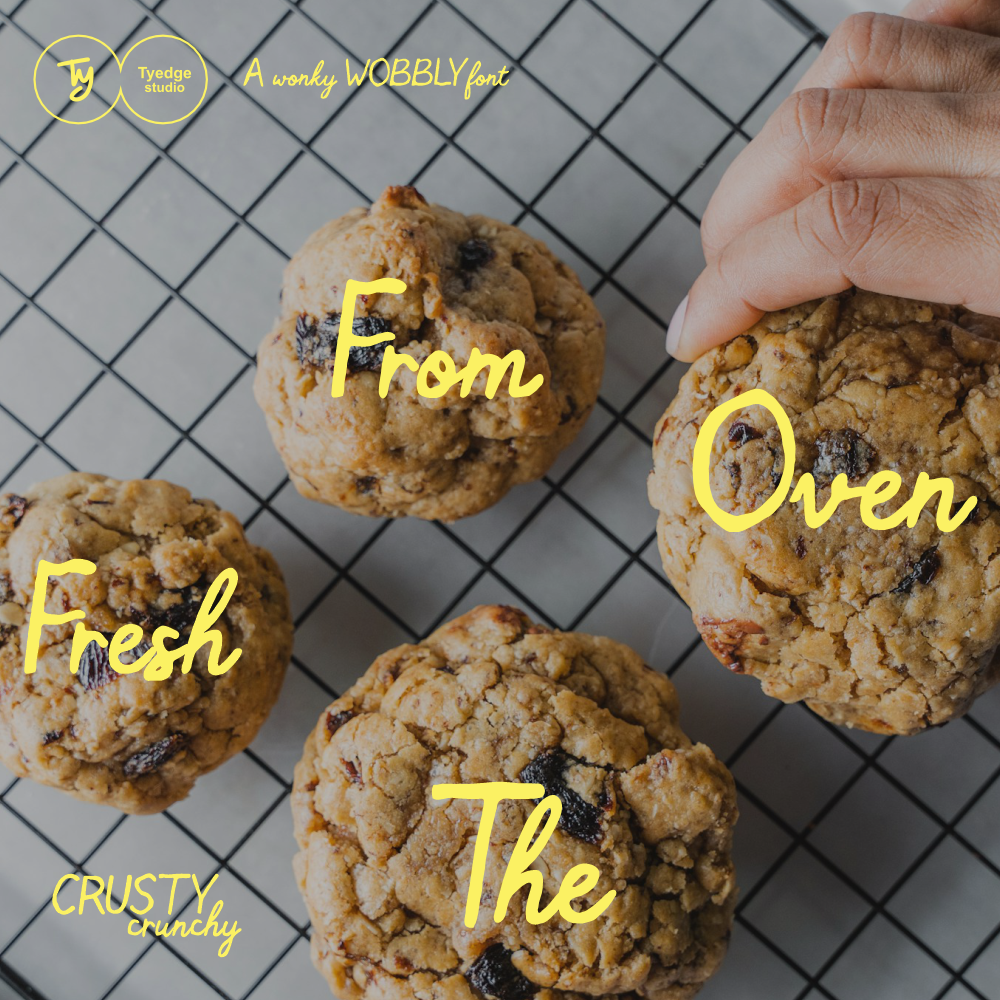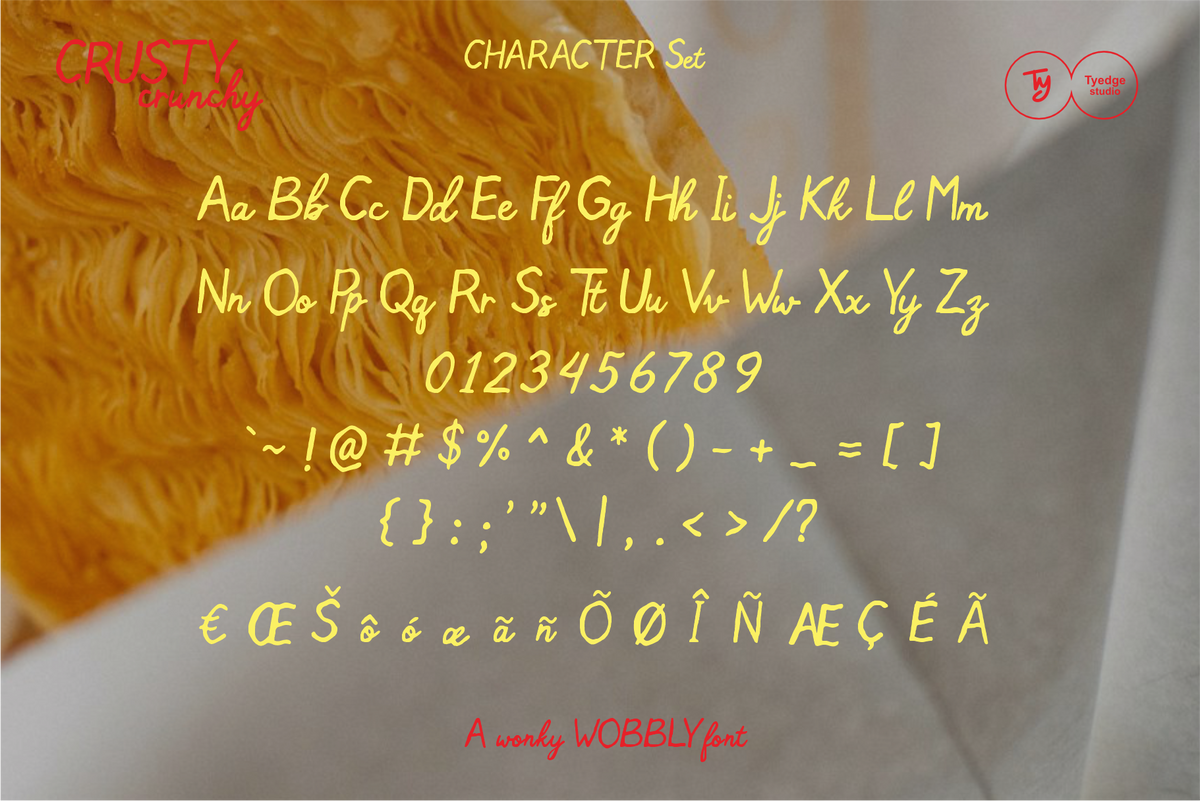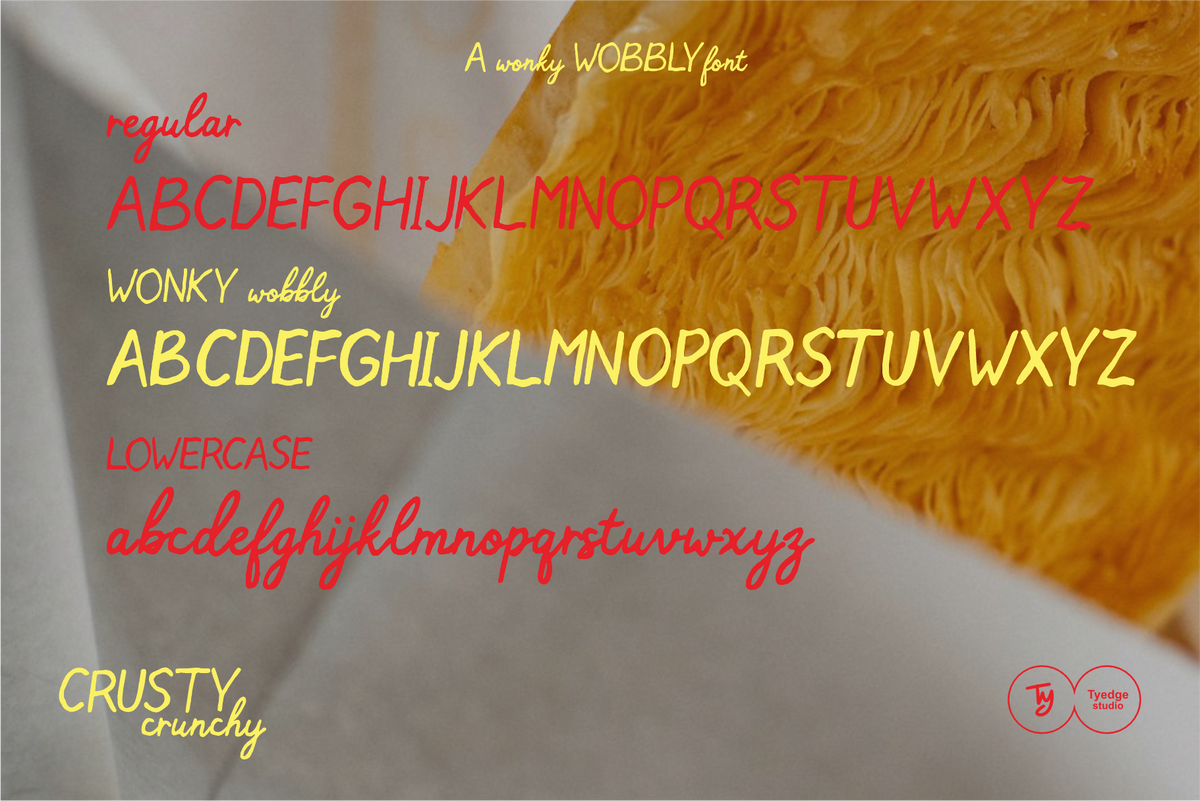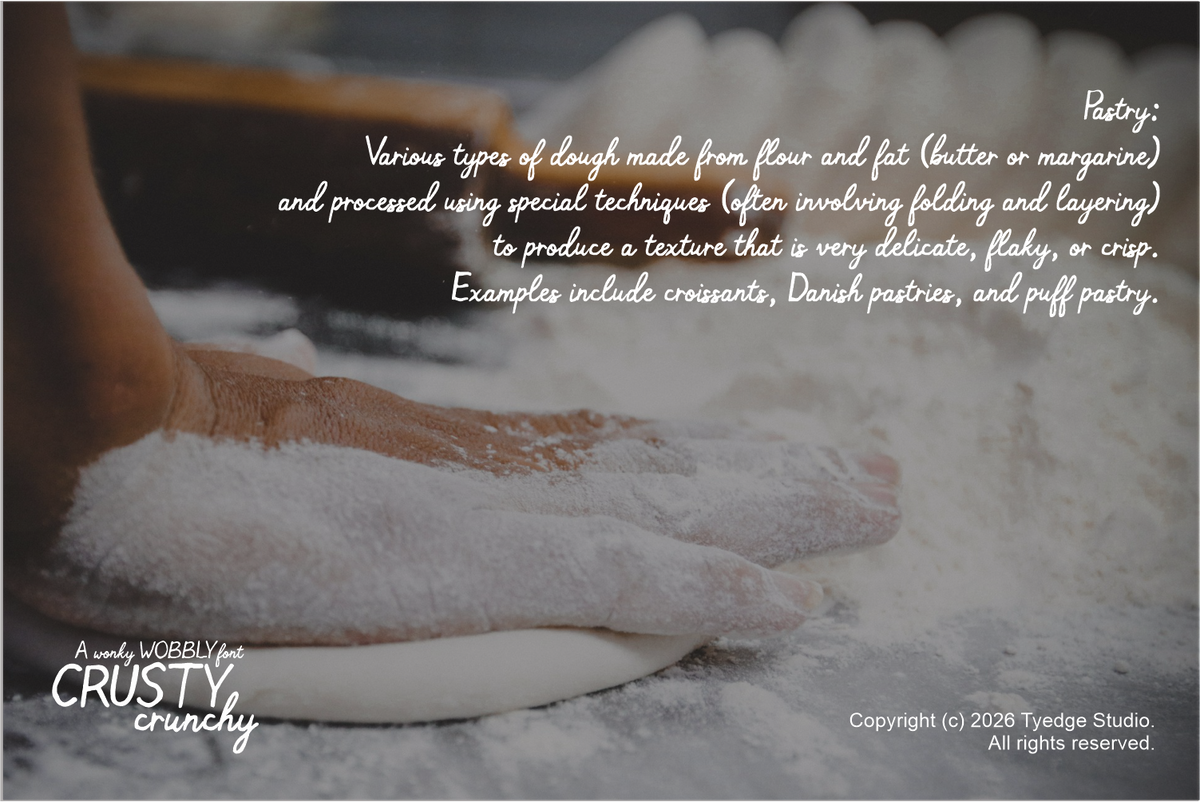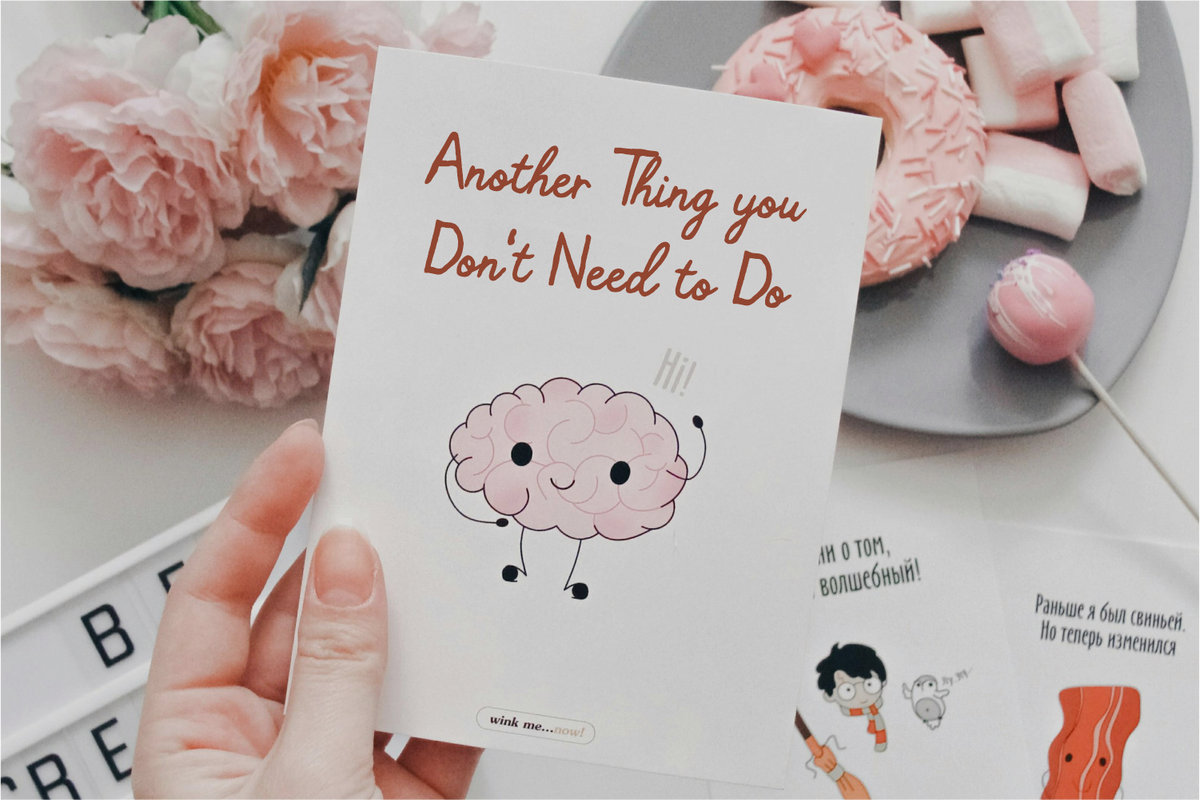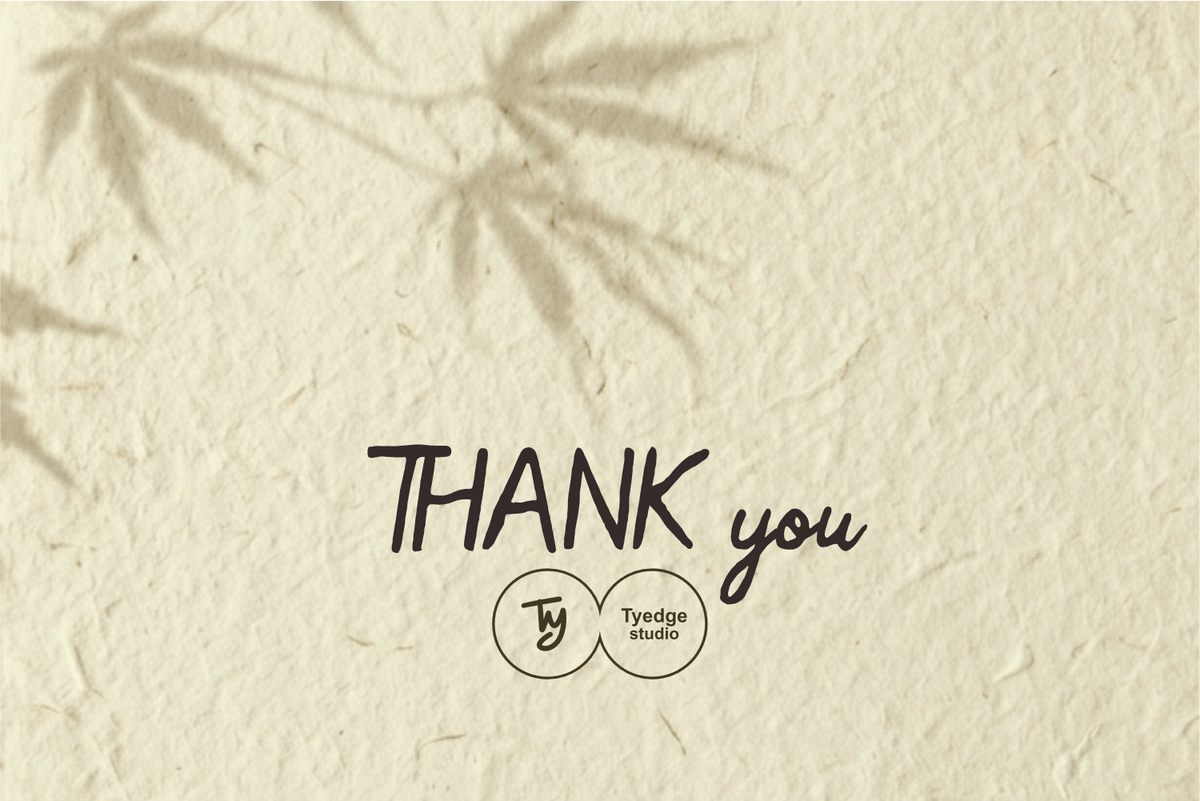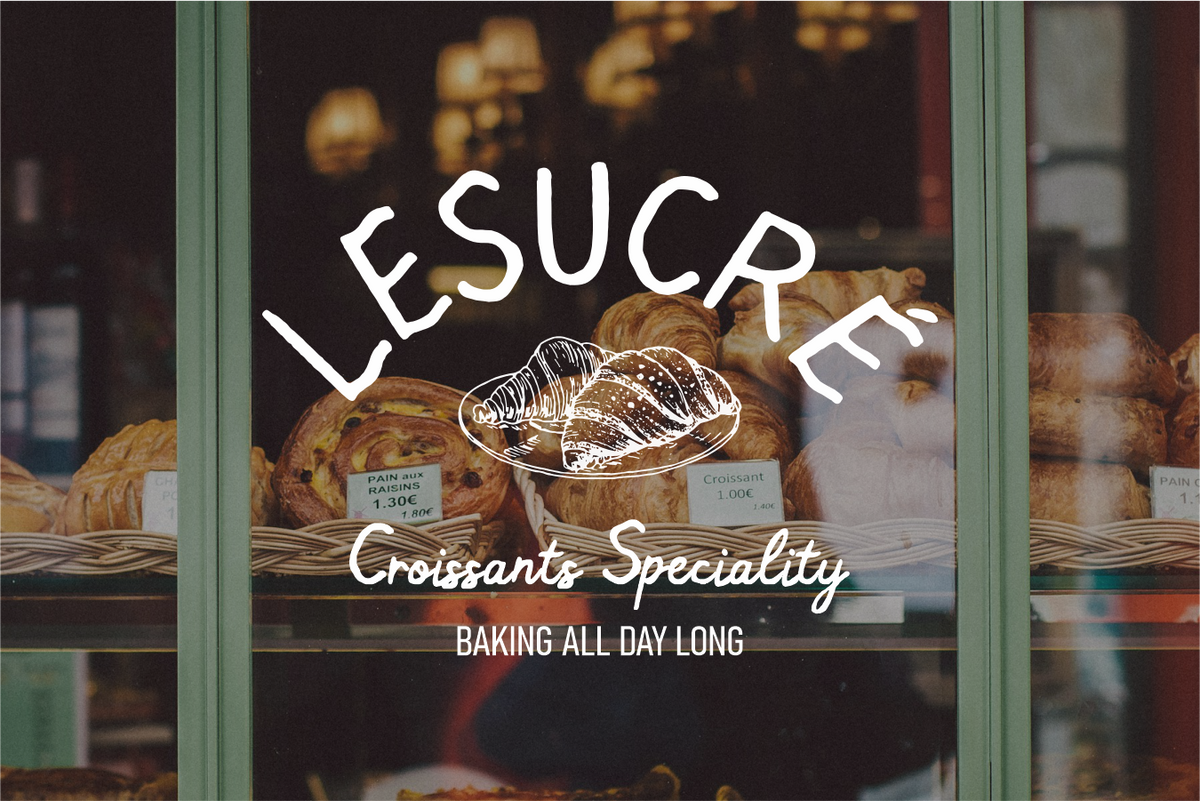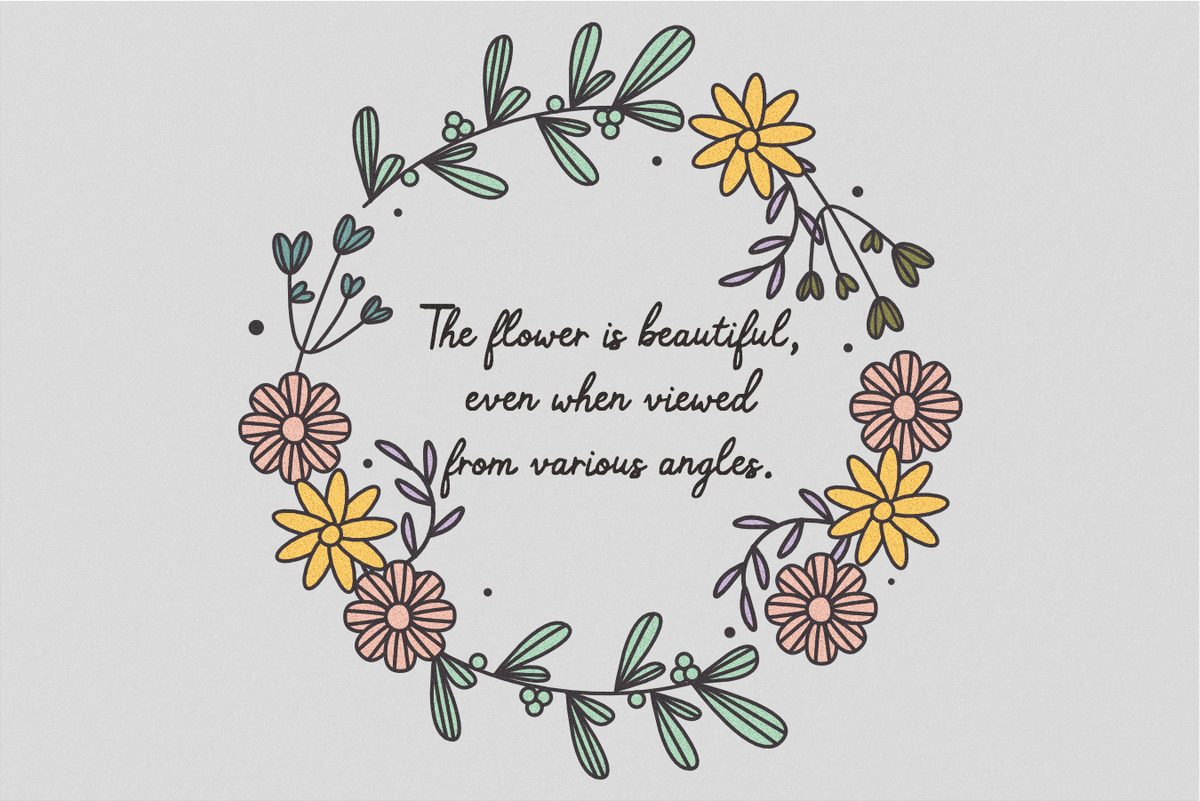
Crusty Crunchy A Wonky Wobbly Font
Elevate your designs with Crusty Crunchy A Wonky Wobbly Font, font crafted to bring timeless elegance to every project.
Every curve and loop has been meticulously designed to exude sophistication, making it the ultimate typeface for high-end branding and romantic storytelling.
Perfect for:
* Suitable for culinary themes, home-style food, cafés, or handmade products to highlight an authentic, handcrafted feel.
* Wedding invitations, RSVP cards, and stationery suites
* Luxury branding, logos, and premium packaging (cosmetics, perfume, jewelry)
* Editorial layouts, magazine headers, and book covers
* Social media quotes, elegant watermarks, and photography overlays
* Full Set of Glyphs – Uppercase & Lowercase letters, Numerals, and Punctuation.
* Beautiful Ligatures & Alternates – Special character combinations to make your typography look organic and seamless.
* Multilingual Support (Optional: add this if your font supports accents like à, é, ü, etc.)
Bring a touch of effortless luxury to your creative canvas today with Crusty Crunchy.